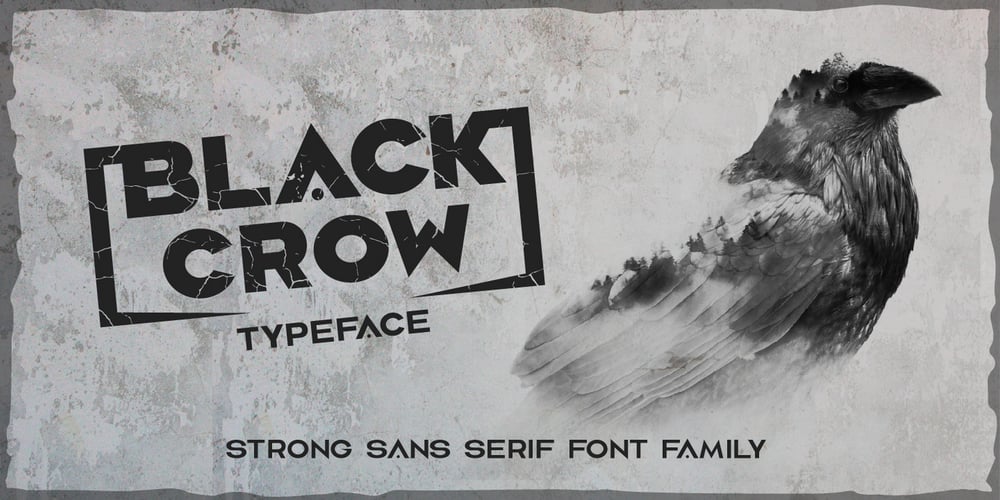
Black Crow
Black Crow font
Black Crow Font Family was designed by Evgeny Dneprovsky and published by Fractal Font Factory. Black Crow contains 8 styles and family package options. Black Crow is a display sans-serif type family includes eight weights. It is influenced by the geometric-style sans-serif faces that were popular during the 1920s and 30s. The styles are based on geometric forms that have been optically corrected for better legibility. Black Crow has a functional look with a hard touch. It is manually hinted and optimized for screens, so it will be a good choice for Websites, eBooks or Apps.